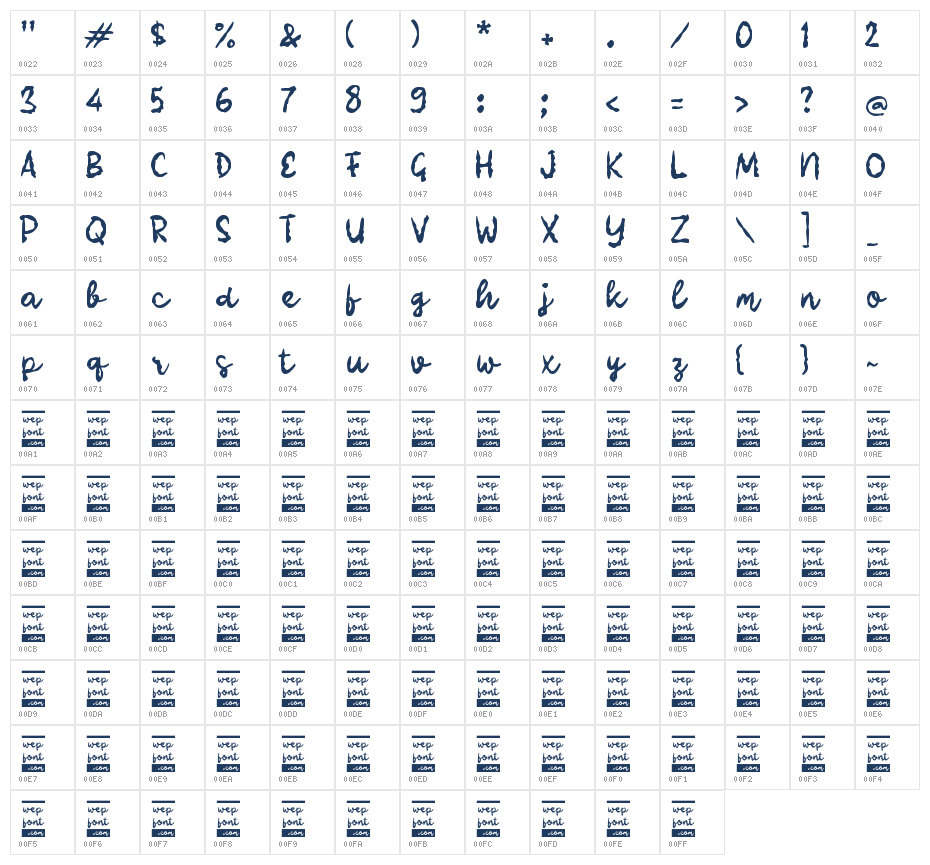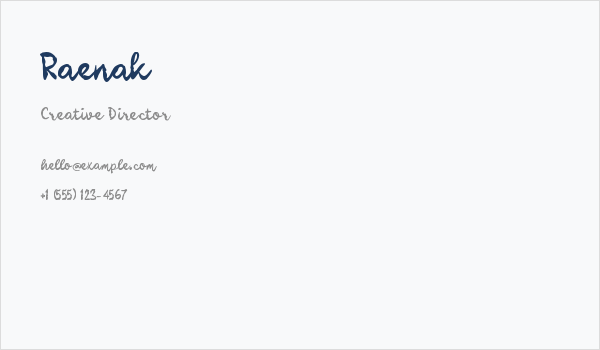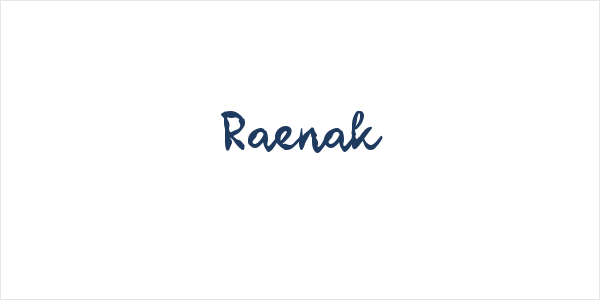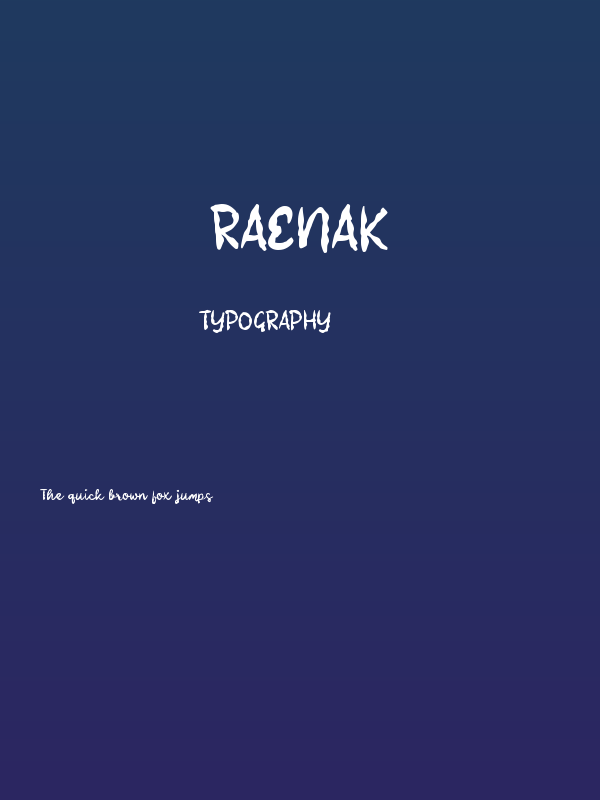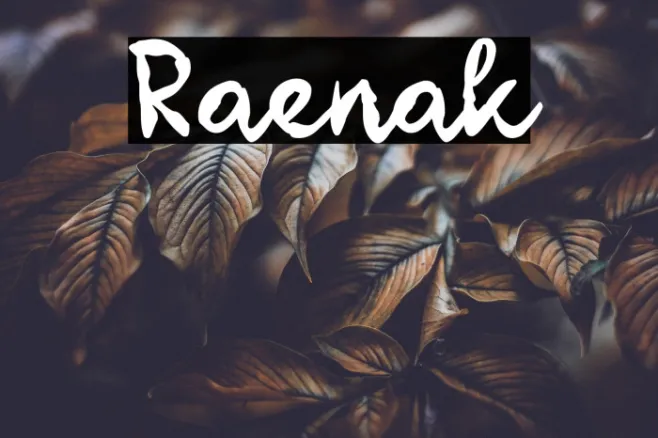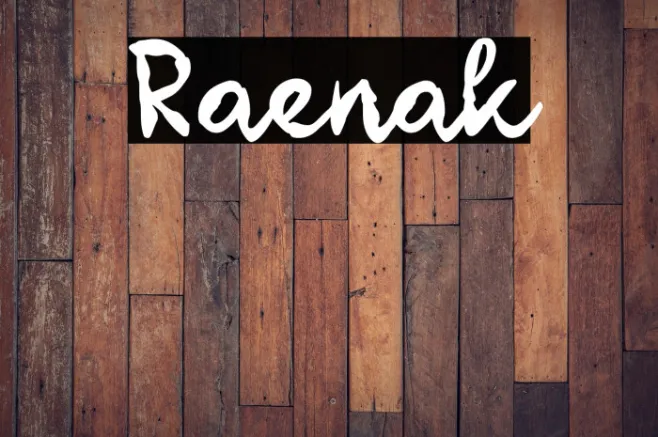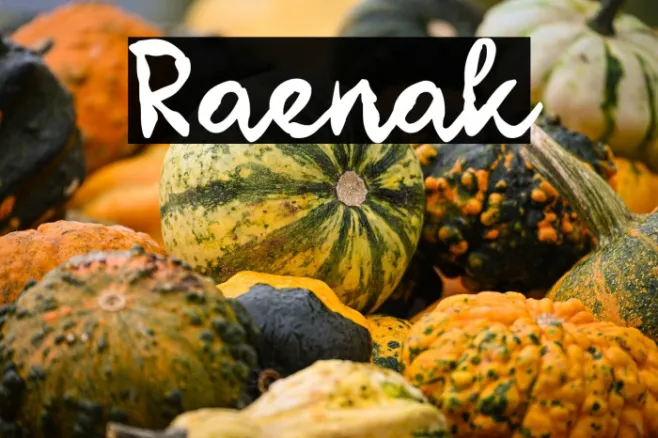
Raenak Font
Raenak Description
A casual, handwritten style font with a playful and informal appearance, featuring irregular strokes and a slightly textured look.
| Overall Style | Casual, Handwritten, Playful |
| Use Case | Headlines, Body text, Logos, Invitations |